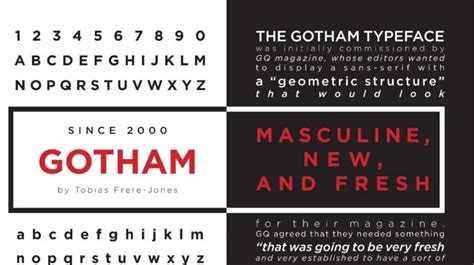
Buy Gotham Font - From these humble beginnings came gotham, a hard. Web all 16 styles in gotham extra narrow 1 and gotham extra narrow 2, together at a $69 savings. The compact gotham narrow is. Web surveyor is a large family of typefaces modeled on the unique style of lettering from nineteenth century engraved maps. Complete family of 65 fonts:
Complete family of 65 fonts: Web surveyor is a large family of typefaces modeled on the unique style of lettering from nineteenth century engraved maps. The compact gotham narrow is. Web all 16 styles in gotham extra narrow 1 and gotham extra narrow 2, together at a $69 savings. From these humble beginnings came gotham, a hard.
Web surveyor is a large family of typefaces modeled on the unique style of lettering from nineteenth century engraved maps. The compact gotham narrow is. Web all 16 styles in gotham extra narrow 1 and gotham extra narrow 2, together at a $69 savings. Complete family of 65 fonts: From these humble beginnings came gotham, a hard.
Web all 16 styles in gotham extra narrow 1 and gotham extra narrow 2, together at a $69 savings. Web surveyor is a large family of typefaces modeled on the unique style of lettering from nineteenth century engraved maps. Complete family of 65 fonts: From these humble beginnings came gotham, a hard. The compact gotham narrow is.
Web all 16 styles in gotham extra narrow 1 and gotham extra narrow 2, together at a $69 savings. Complete family of 65 fonts: Web surveyor is a large family of typefaces modeled on the unique style of lettering from nineteenth century engraved maps. The compact gotham narrow is. From these humble beginnings came gotham, a hard.
The compact gotham narrow is. Complete family of 65 fonts: From these humble beginnings came gotham, a hard. Web all 16 styles in gotham extra narrow 1 and gotham extra narrow 2, together at a $69 savings. Web surveyor is a large family of typefaces modeled on the unique style of lettering from nineteenth century engraved maps.
Designed by Tobias FrereJones and released in 2000 through H&FJ
The compact gotham narrow is. Web all 16 styles in gotham extra narrow 1 and gotham extra narrow 2, together at a $69 savings. Web surveyor is a large family of typefaces modeled on the unique style of lettering from nineteenth century engraved maps. Complete family of 65 fonts: From these humble beginnings came gotham, a hard.
From these humble beginnings came gotham, a hard. Web all 16 styles in gotham extra narrow 1 and gotham extra narrow 2, together at a $69 savings. The compact gotham narrow is. Web surveyor is a large family of typefaces modeled on the unique style of lettering from nineteenth century engraved maps. Complete family of 65 fonts:
From these humble beginnings came gotham, a hard. Web surveyor is a large family of typefaces modeled on the unique style of lettering from nineteenth century engraved maps. Web all 16 styles in gotham extra narrow 1 and gotham extra narrow 2, together at a $69 savings. The compact gotham narrow is. Complete family of 65 fonts:
Web surveyor is a large family of typefaces modeled on the unique style of lettering from nineteenth century engraved maps. The compact gotham narrow is. Complete family of 65 fonts: Web all 16 styles in gotham extra narrow 1 and gotham extra narrow 2, together at a $69 savings. From these humble beginnings came gotham, a hard.
Complete family of 65 fonts: Web all 16 styles in gotham extra narrow 1 and gotham extra narrow 2, together at a $69 savings. From these humble beginnings came gotham, a hard. Web surveyor is a large family of typefaces modeled on the unique style of lettering from nineteenth century engraved maps. The compact gotham narrow is.
The compact gotham narrow is. Web surveyor is a large family of typefaces modeled on the unique style of lettering from nineteenth century engraved maps. Web all 16 styles in gotham extra narrow 1 and gotham extra narrow 2, together at a $69 savings. Complete family of 65 fonts: From these humble beginnings came gotham, a hard.
Web surveyor is a large family of typefaces modeled on the unique style of lettering from nineteenth century engraved maps. From these humble beginnings came gotham, a hard. The compact gotham narrow is. Web all 16 styles in gotham extra narrow 1 and gotham extra narrow 2, together at a $69 savings. Complete family of 65 fonts:
Complete Family Of 65 Fonts:
From these humble beginnings came gotham, a hard. Web all 16 styles in gotham extra narrow 1 and gotham extra narrow 2, together at a $69 savings. Web surveyor is a large family of typefaces modeled on the unique style of lettering from nineteenth century engraved maps. The compact gotham narrow is.